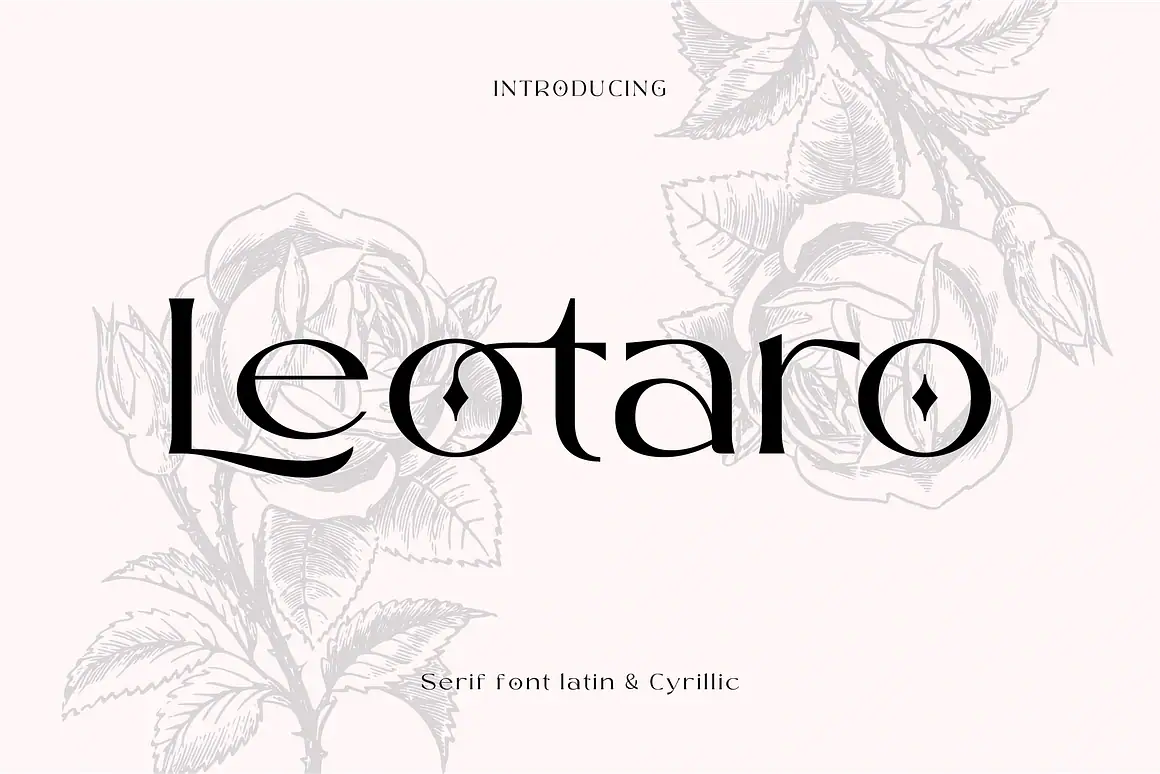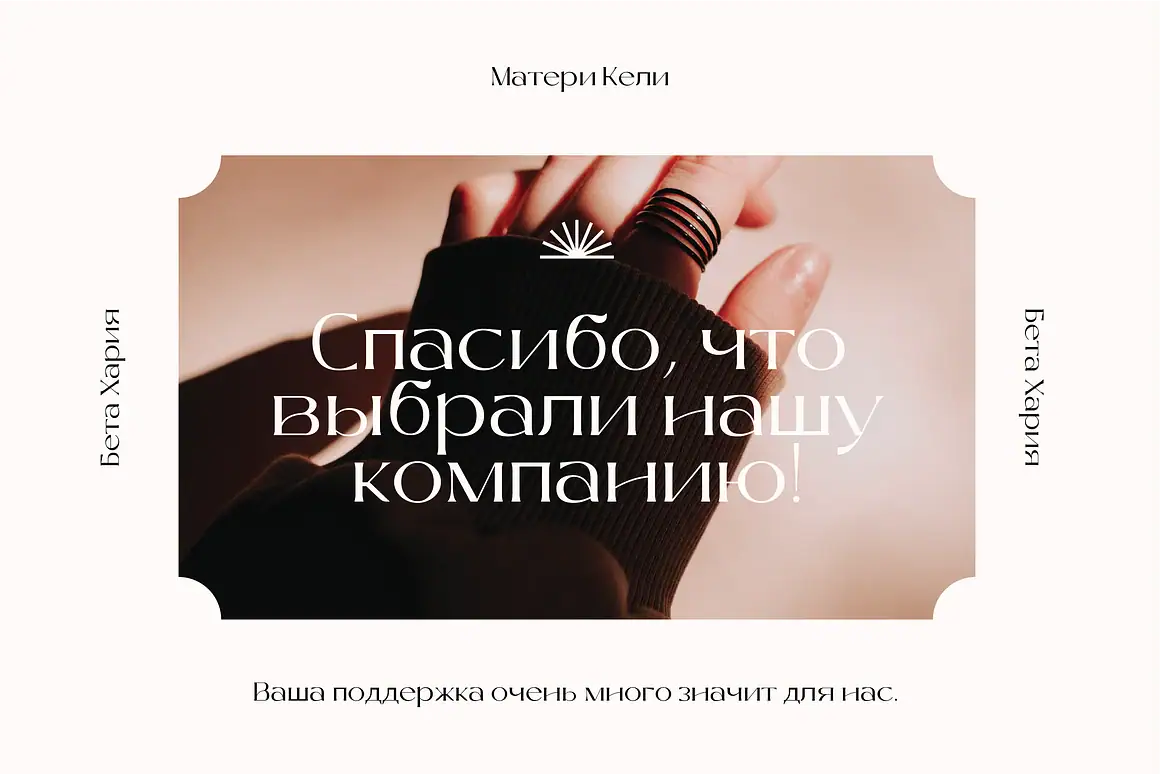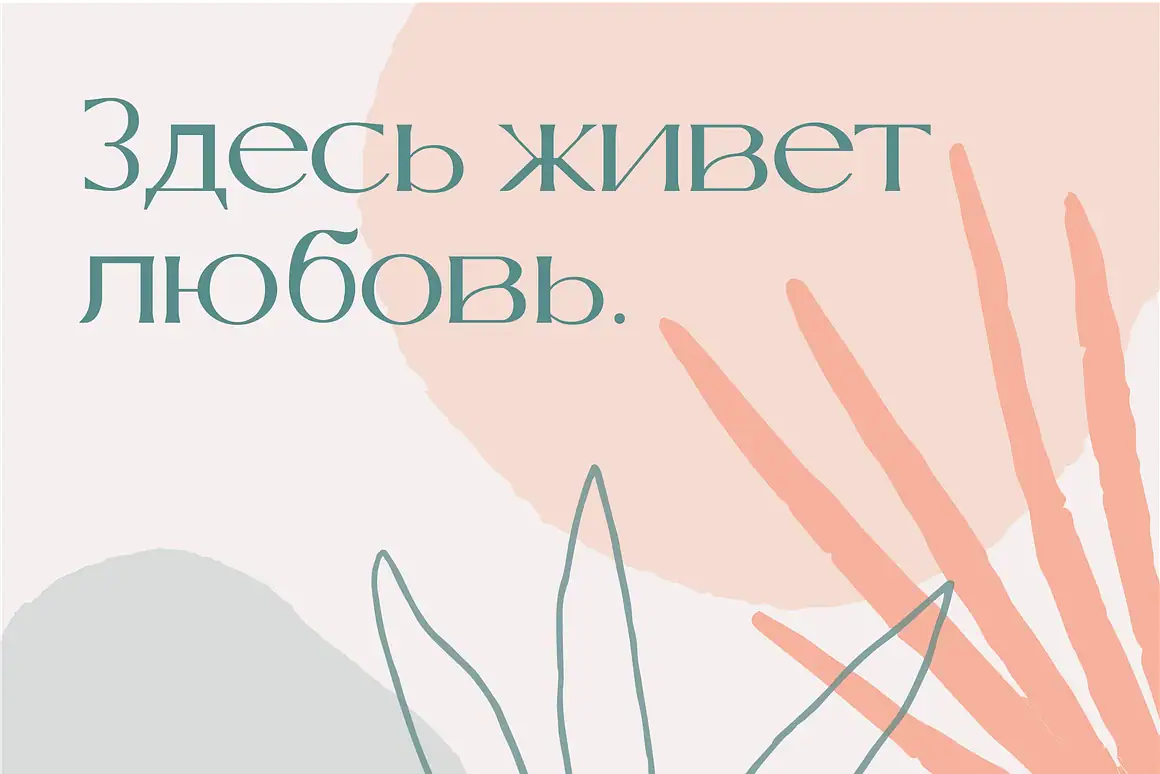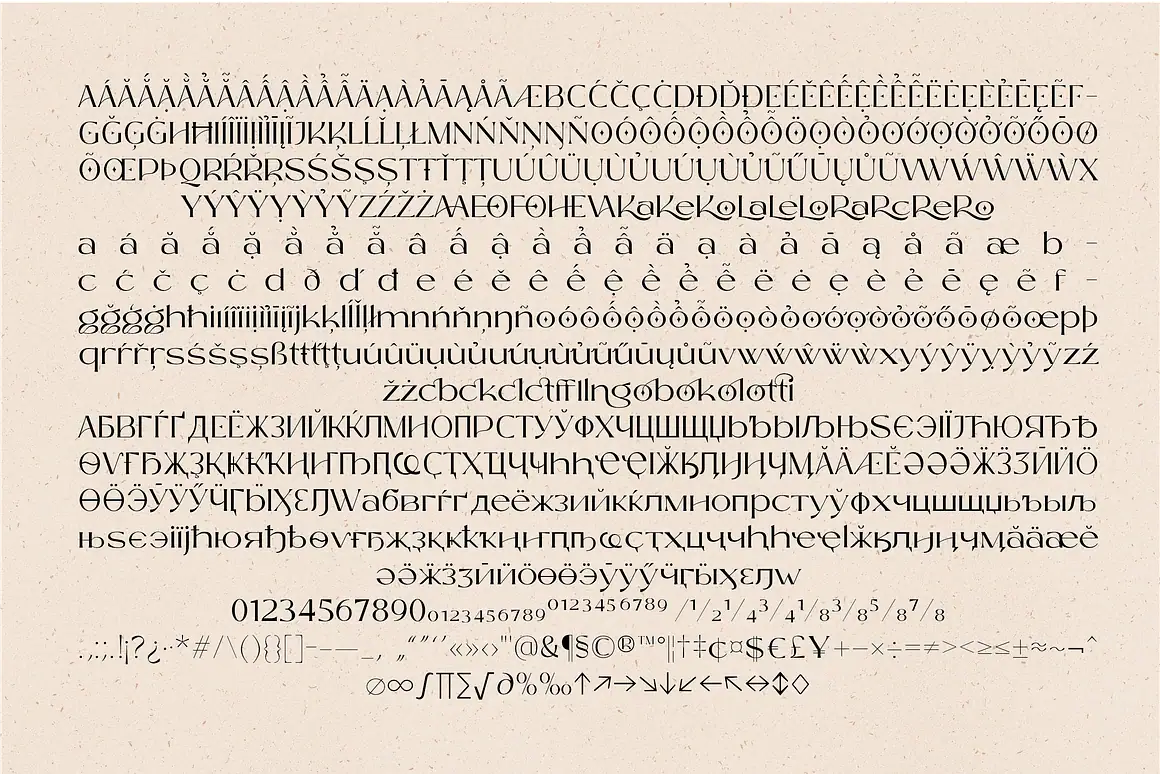
Leotaro - Latin and Cyrillic Serif Font
Leotaro – Latin and Cyrillic Font is a refined serif typeface inspired by the Reclaim font. With its simple yet elegant design, Leotaro latin and cyrillic font is crafted to make your projects unforgettable.
Supporting both Latin and Cyrillic characters, Leotaro is versatile and suitable for a wide range of creative applications.
✦ Features Leotaro
- Standard uppercase & lowercase letters
- Numerals, extensive punctuation, and ligatures
- Multilingual support
- Language support Latin and Cyrillic Font, includes: ä ö ü Ä Ö Ü ß ¿ ¡